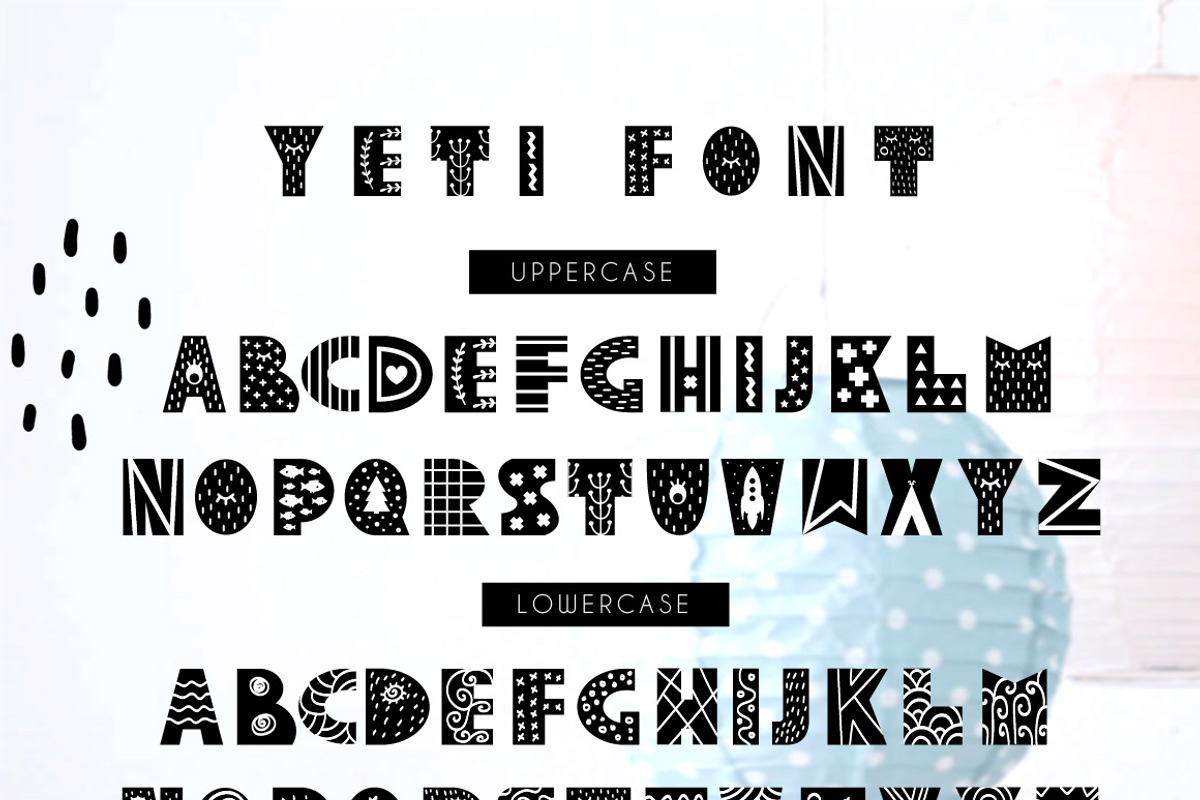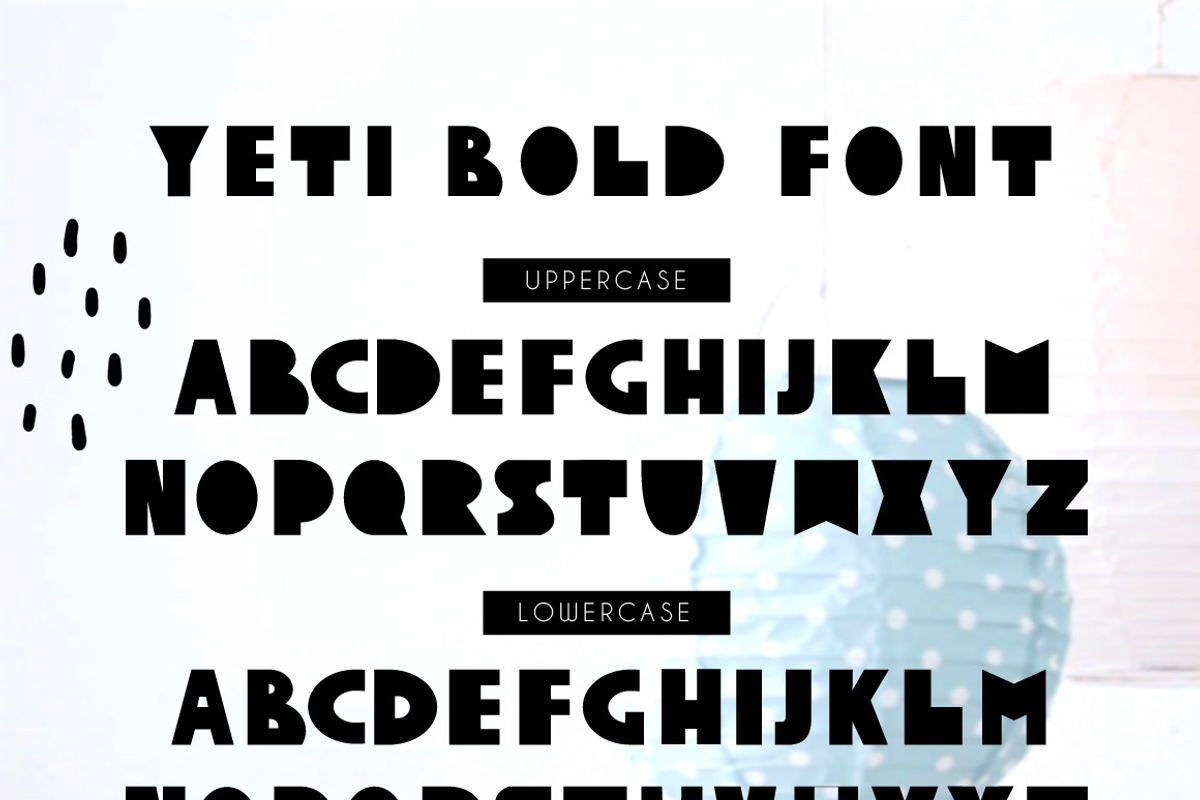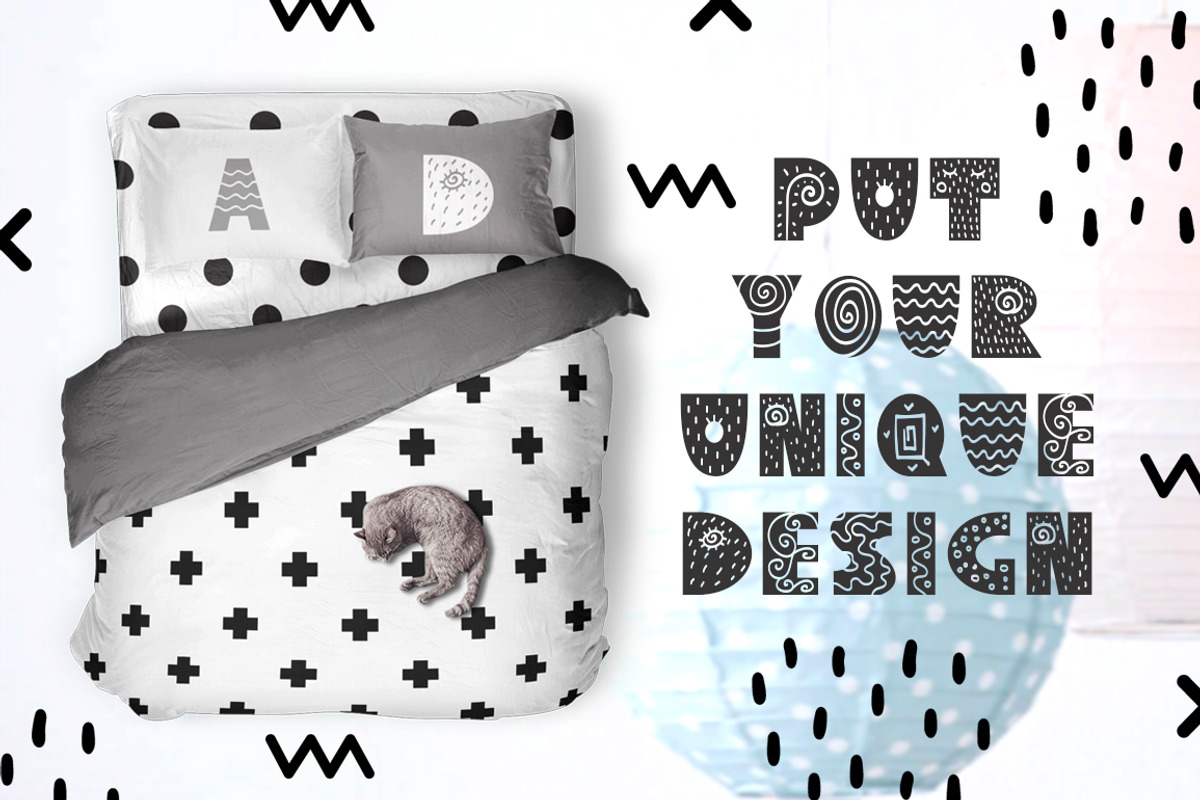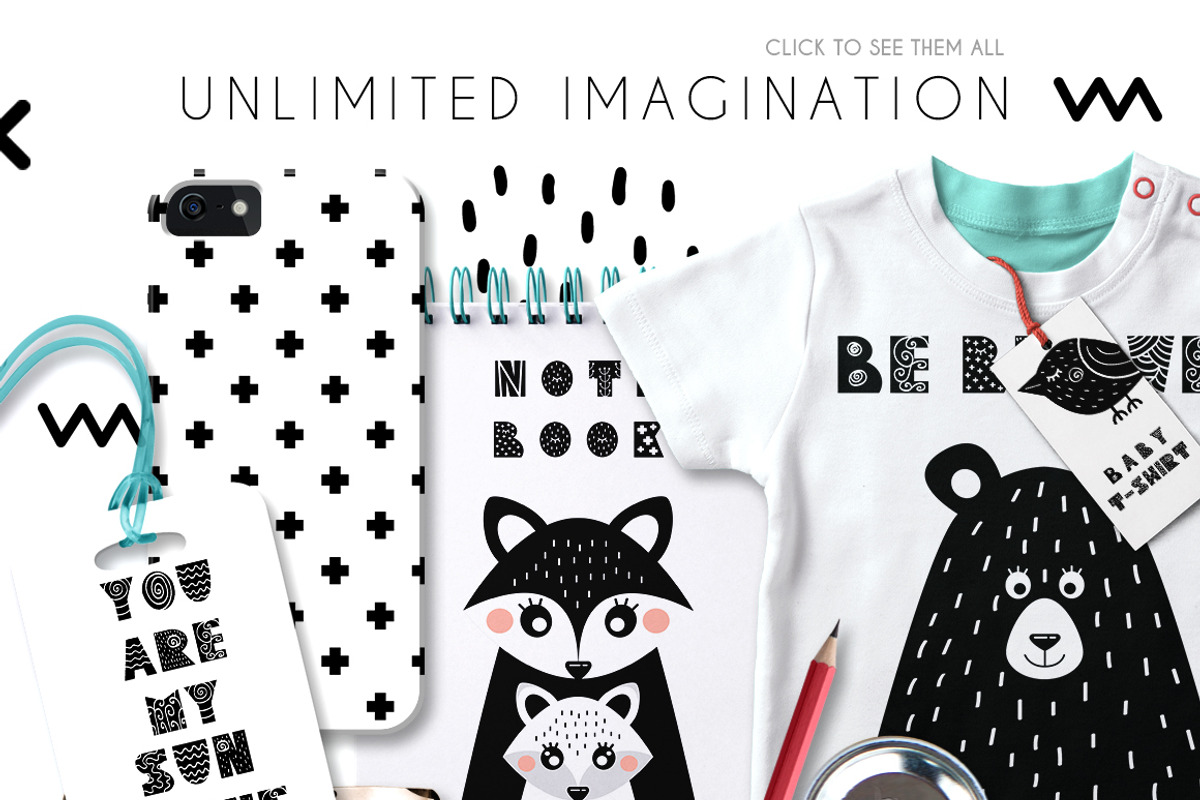
Yeti - Scandinavian font & elements
Hi! I represent to your attention a lovely cute set of Yeti! In this set you will find a pretty font and decorative elements in Scandinavian style! Using Yeti font and elements of decor, you can create posters for the interior and not only. Also invitations, gift packaging, greeting cards, Wallpaper, textiles, logos, magnets, notebooks, prints, posters and more!